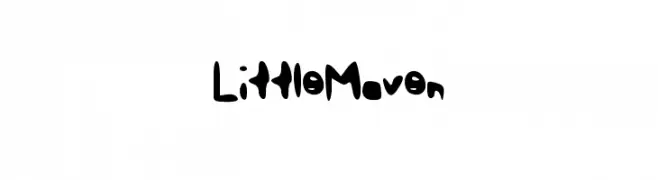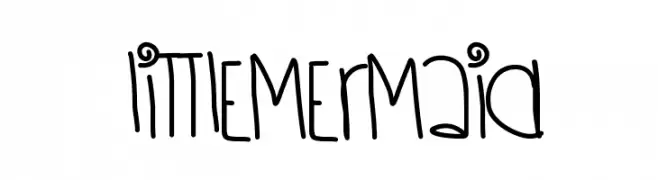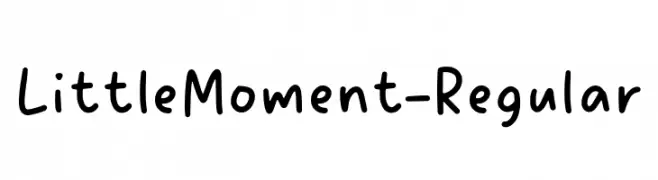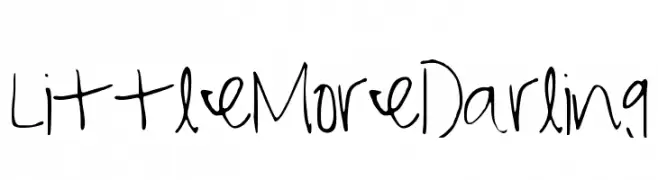
A whimsical and playful font with curly, looping strokes and decorative swirls.
An ornate and decorative font with vintage-inspired flourishes.
An elegant, decorative font with intricate, ornate letterforms and a vintage flair.
A bold, expressive handwritten font with fluid, cursive strokes.
A playful, hand-drawn font with bold, rounded characters and a whimsical style.
A playful, hand-drawn font with tall, narrow letters and a whimsical style.
A playful, hand-drawn font with tall, narrow letters and whimsical doodles.
A playful, handwritten font with smooth, rounded edges and a casual style.
A playful, hand-drawn font with tall, narrow letters and a whimsical style.